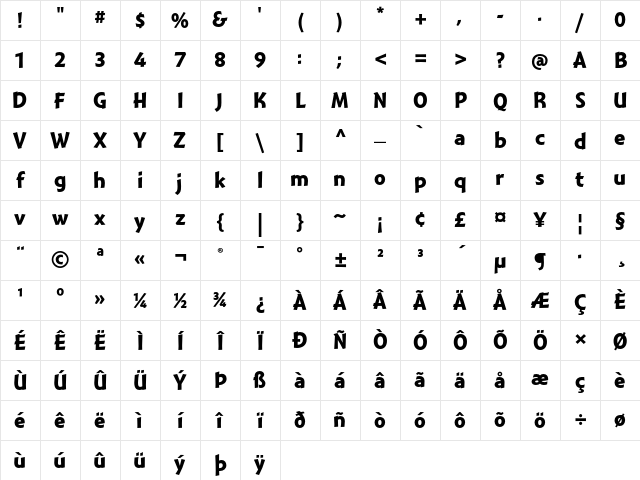
Montara Bold Gothic
Style: Bold Gothic
Designer: Jim Parkinson
Design Context for Montara
Montara takes a clean, functional approach - its unadorned letterforms prioritise legibility and work reliably across screen and print environments. Its bold stroke weight gives it real presence on the page.
Font Pairing: Use Montara for headlines alongside a lighter-weight sans or serif for body copy to establish clear visual hierarchy.
Pro Tip: Use Montara for UI labels, navigation, and short-form body copy where clean legibility is the priority.